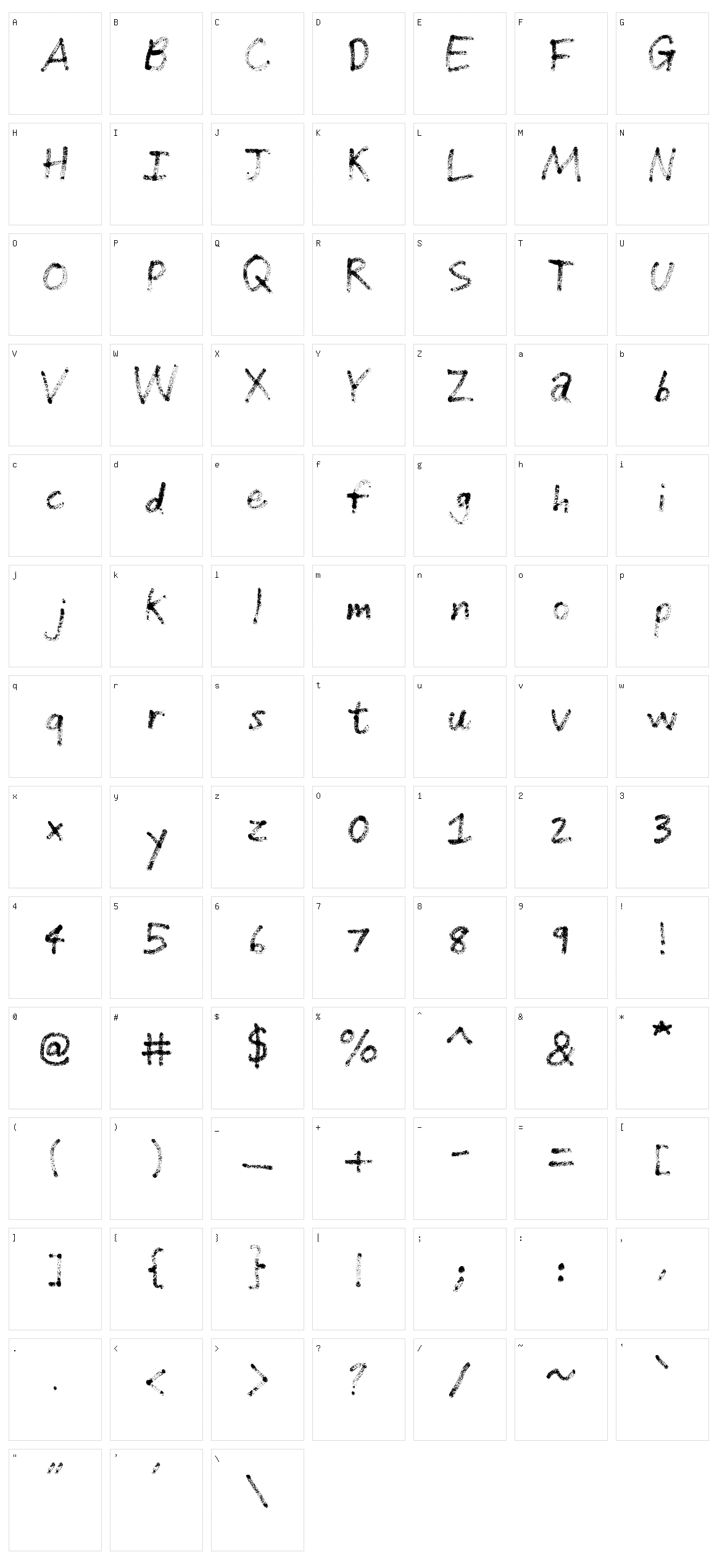
Grunge Handwriting Font
The Grunge Handwriting font is a display font created with FontLab Studio 5. The grunge effect is created due to the threshold adjustment of the scan.